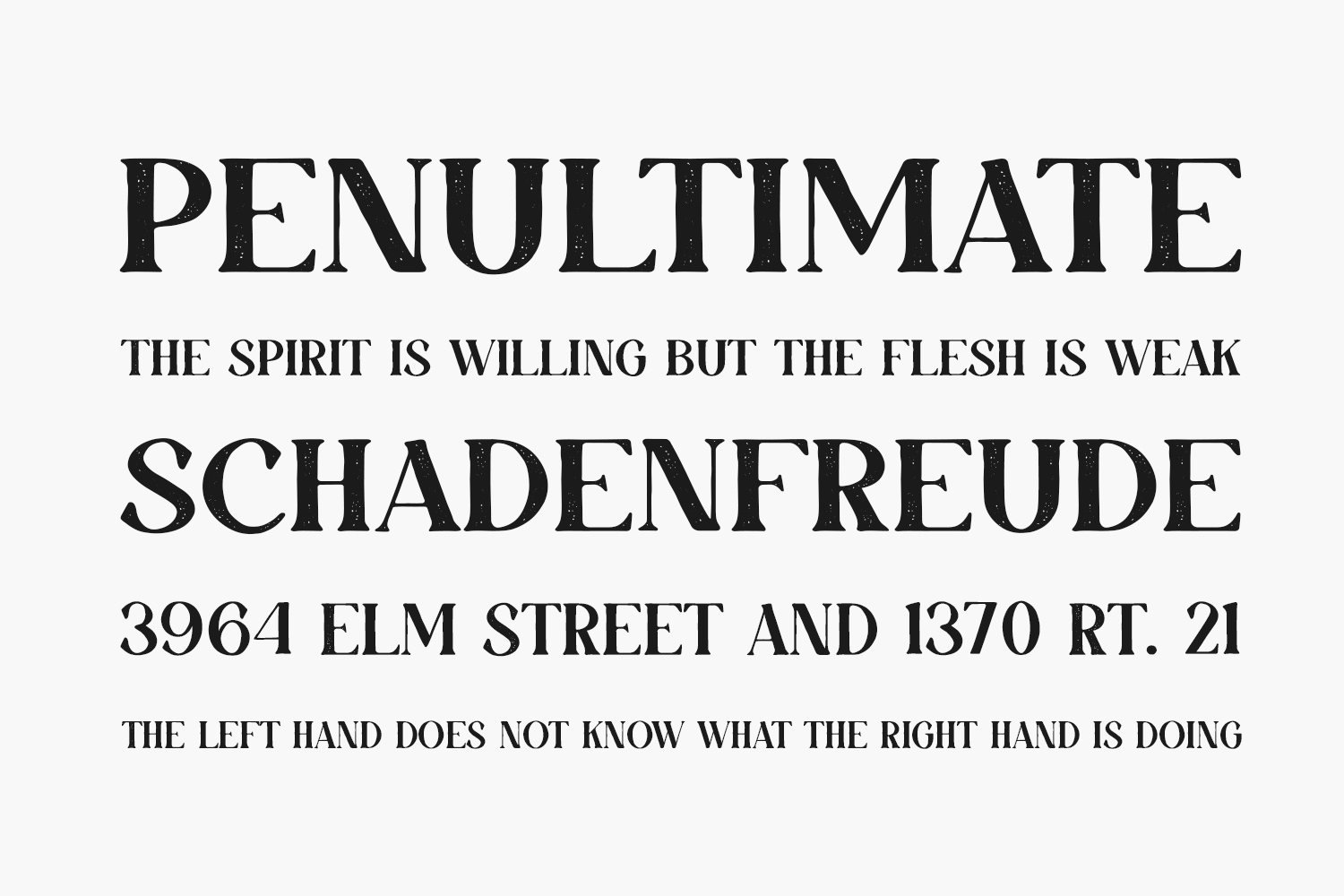
Jabrowzky – Free Vintage Serif Display Font with Art‑Deco Charm
Jabrowzky is a decorative vintage serif typeface crafted by Tokopress, blending art-deco sophistication with barbershop nostalgia. With its tall uppercase forms, subtle flared serifs, and elegant contrast, it’s well-suited for creating standout logos, headlines, posters, packaging, and editorial layouts. The personal-use demo TTF includes 108 characters—uppercase, numerals, punctuation—and is free for private projects. For commercial use, purchase the full license from Tokopress.
Why Choose Jabrowzky?
- Art-Deco Flair: Tall, stylized serifs give it a vintage, 1920s look.
- Display-Optimized: Strong uppercase glyphs command attention in large formats.
- Single-Weight Family: One regular style—clean, clear, and effective.
- Clean Glyph Set: Includes uppercase letters, numerals, punctuation—perfect for branding and headlines.
Where to Use Jabrowzky?
- Logos & Branding: Evokes vintage elegance for boutique, barbershop, or café identities.
- Posters & Packaging: Ideal for retro-style event posters, product labels, and craft goods.
- Editorial Headers: Makes a statement in magazine covers, book titles, or blog banners.
- Signage & Display: Excellent in short wordmarks and large typographic displays.
- Photo Overlays & Quotes: Adds a classy, vintage vibe to social media visuals.
Design Tips with Jabrowzky
Use at display sizes (30 pt or larger) to showcase its art-deco details. Pair it with minimalist sans-serifs like Publishers or Modeska to balance its ornate style. Try bold color palettes—black-on-cream, gold-on-dark—to evoke vintage luxury. Consider adding subtle grain or film texture for added retro atmosphere.